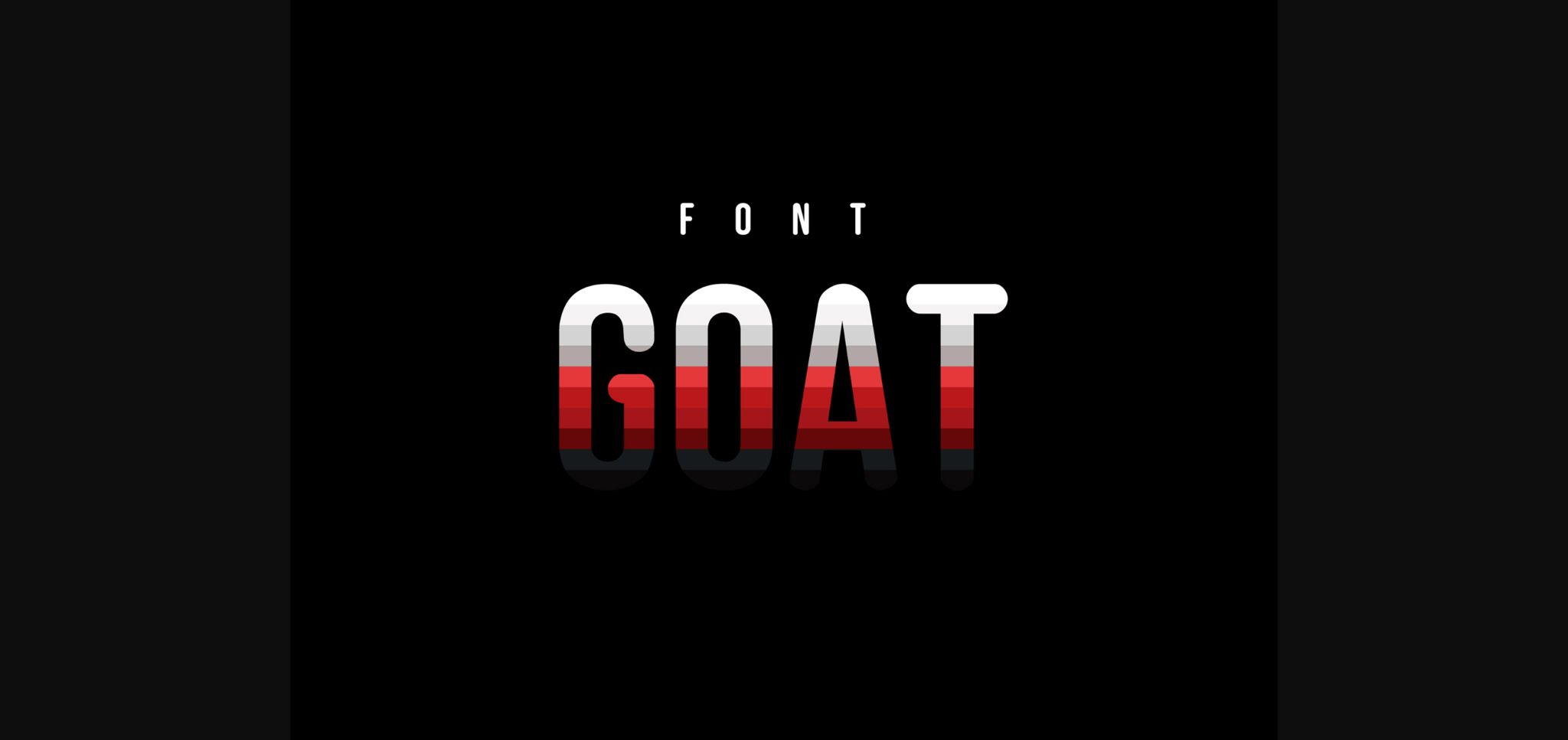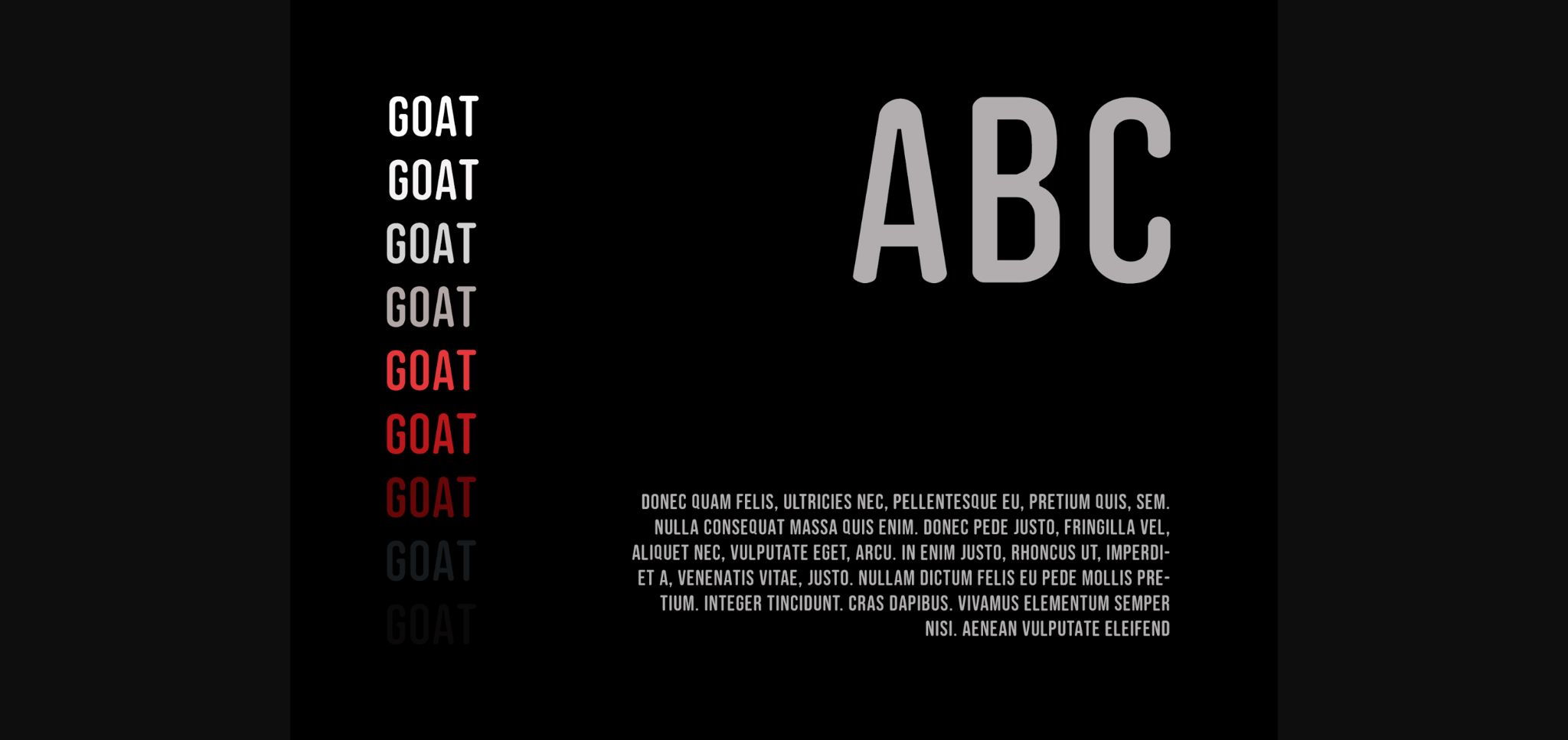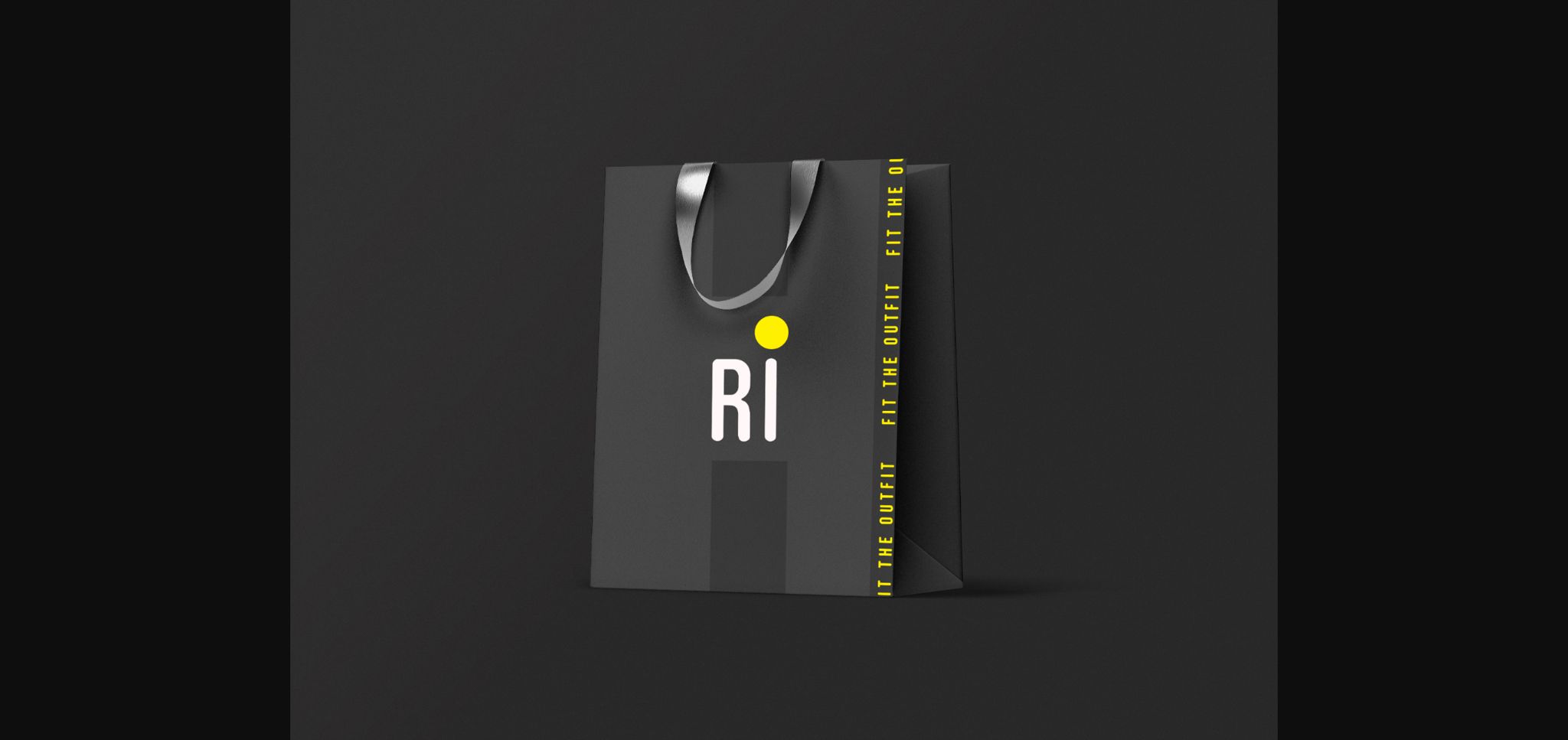
Goat is a modern, minimal yet bold sans serif font. Suitable to a wide variety of designs due to its neat and simple style, this font has the potential to become your favorite go-to font, no matter the occasion!